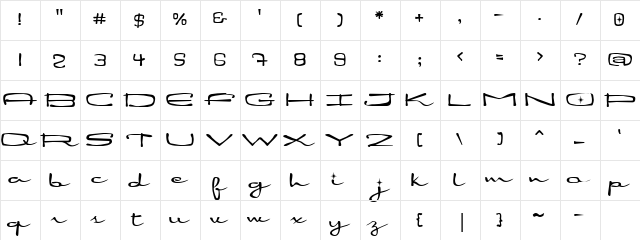
CK Vegas Nights Regular
Design Context for CK Vegas Nights Typeface
CK Vegas Nights is a composed and adaptable typeface that performs quietly and consistently across a wide range of design contexts.